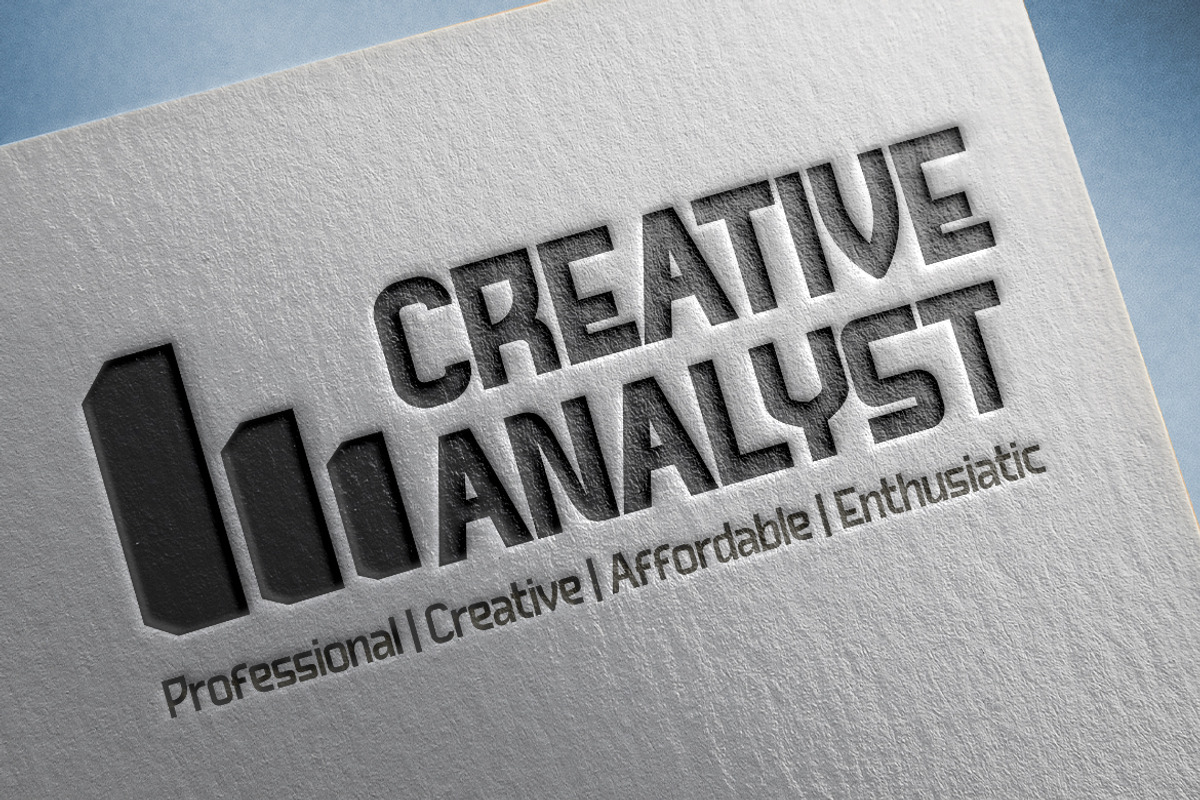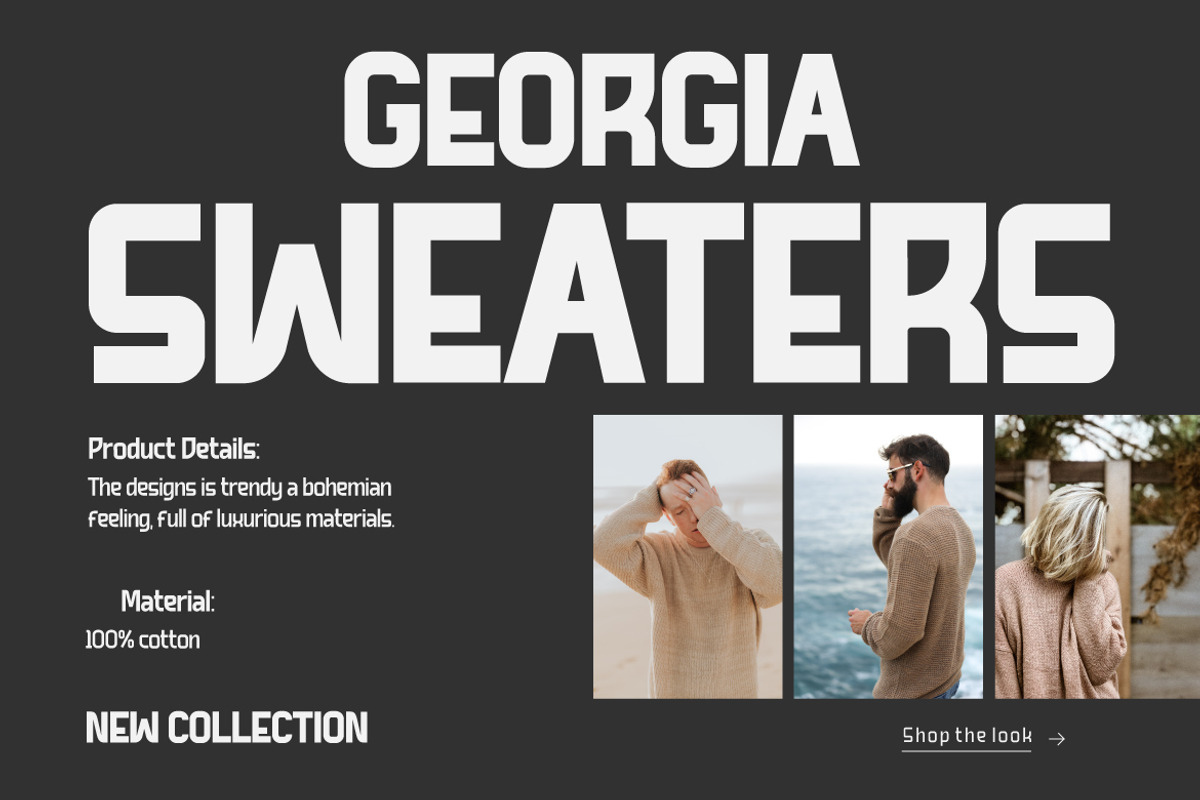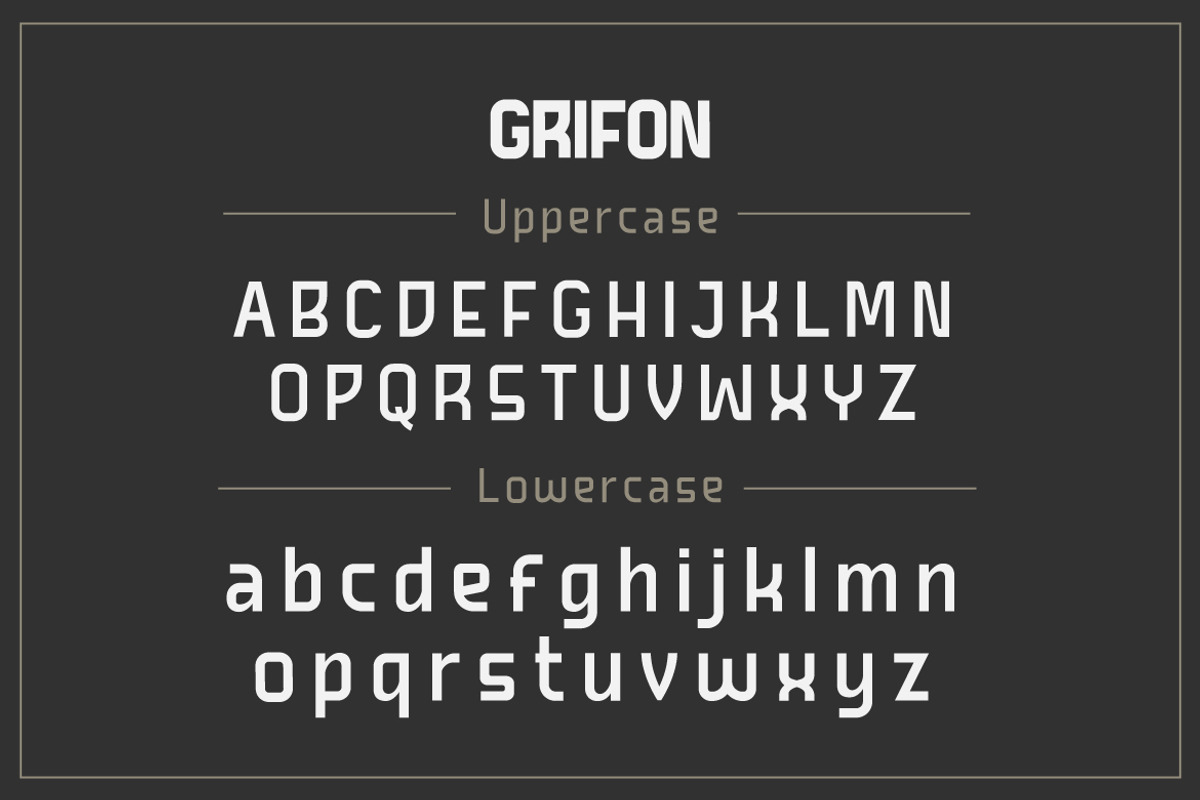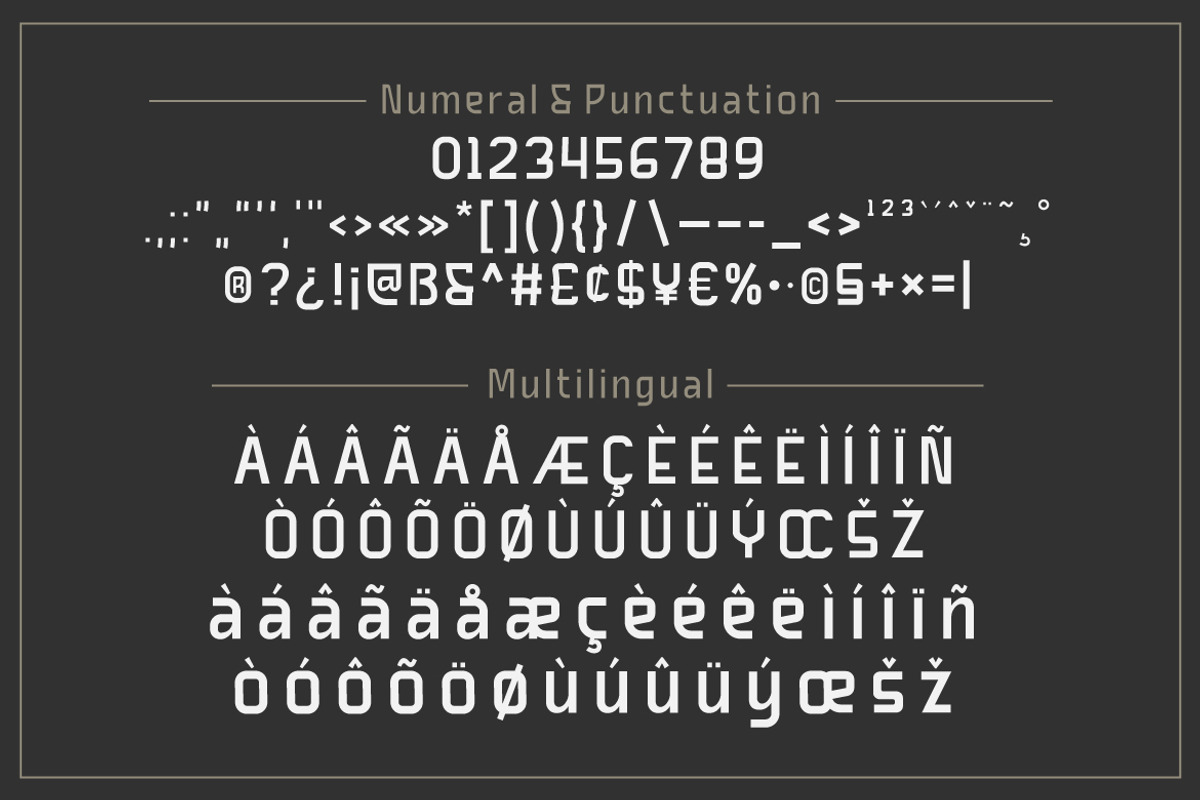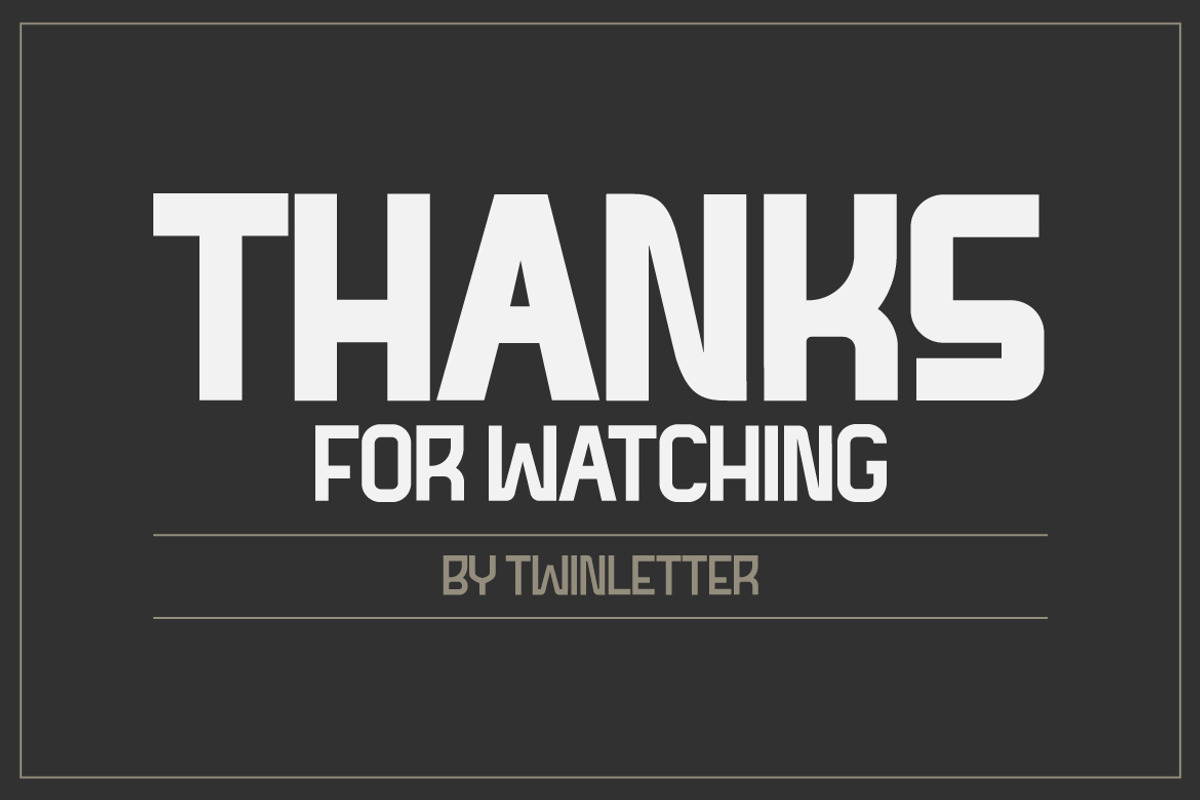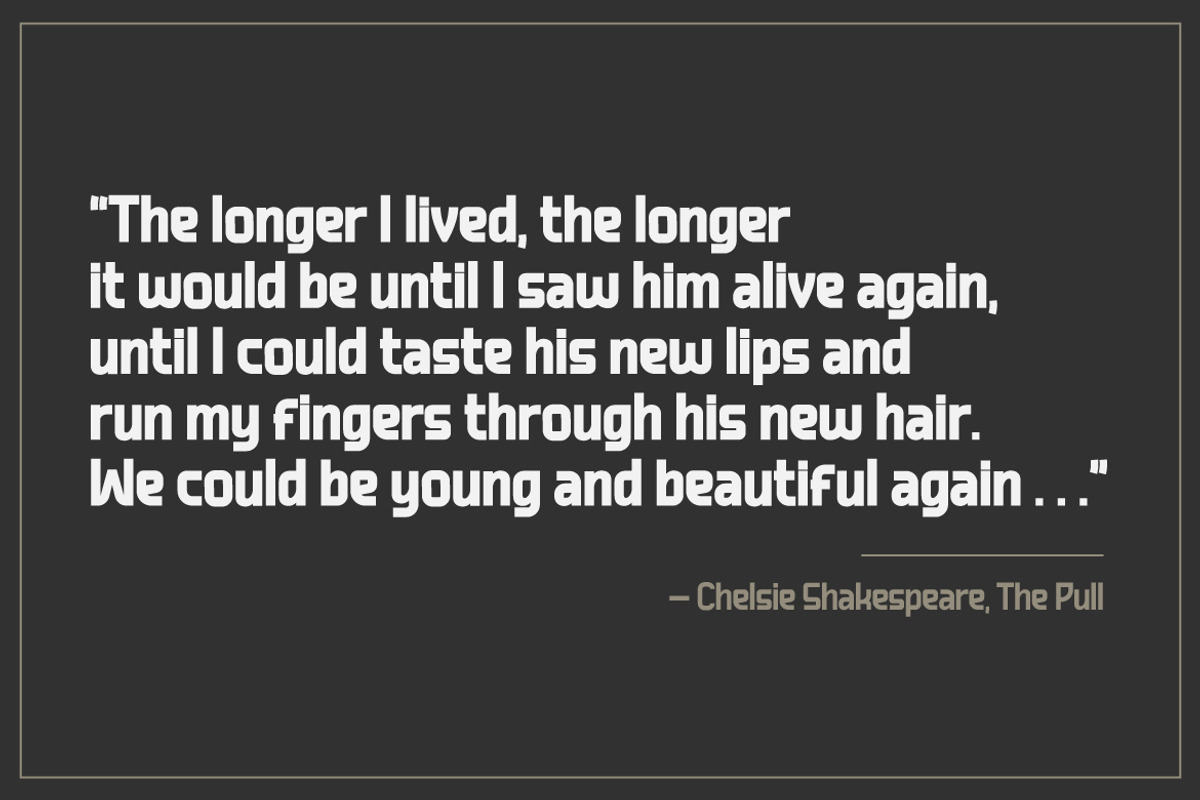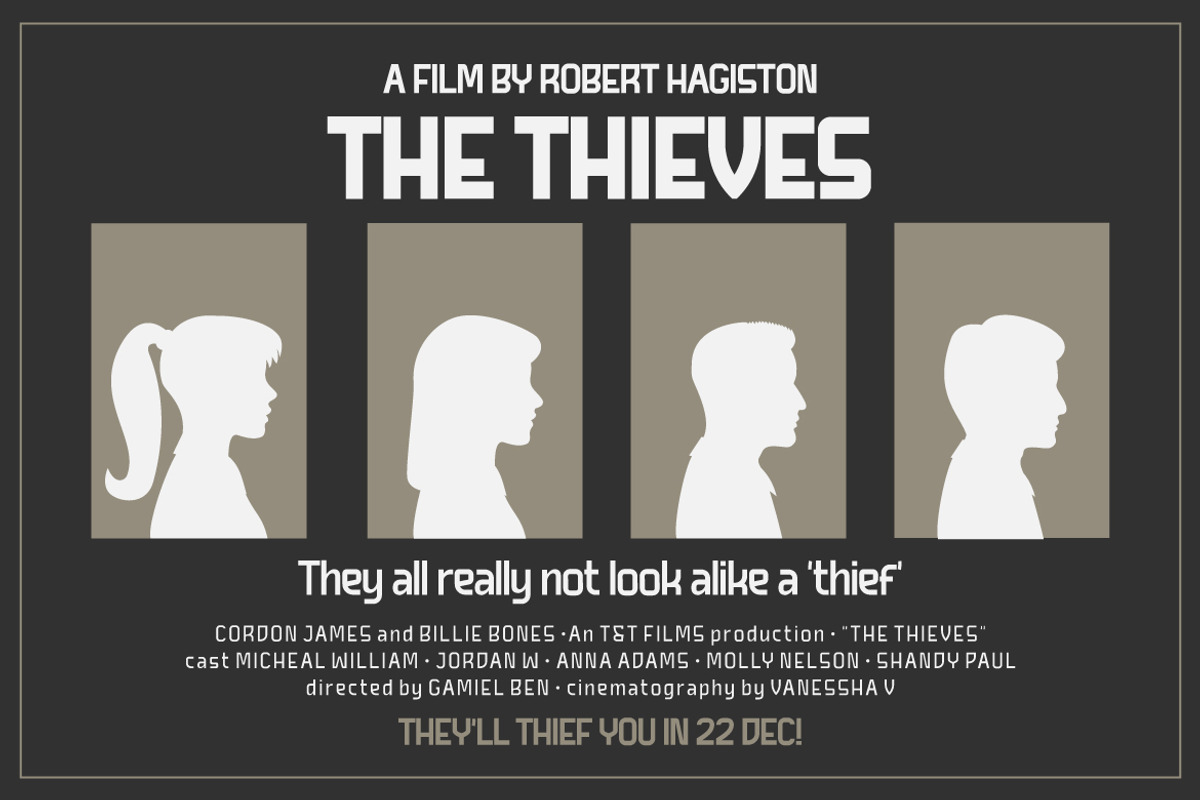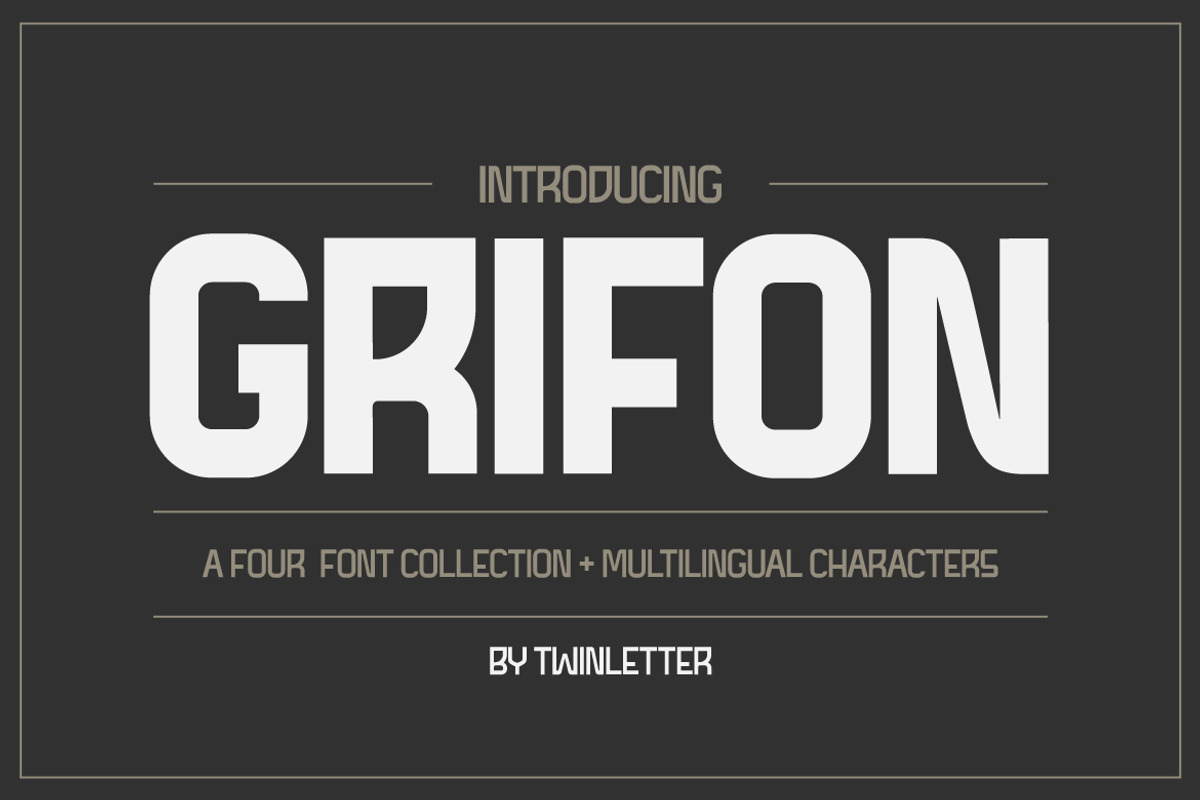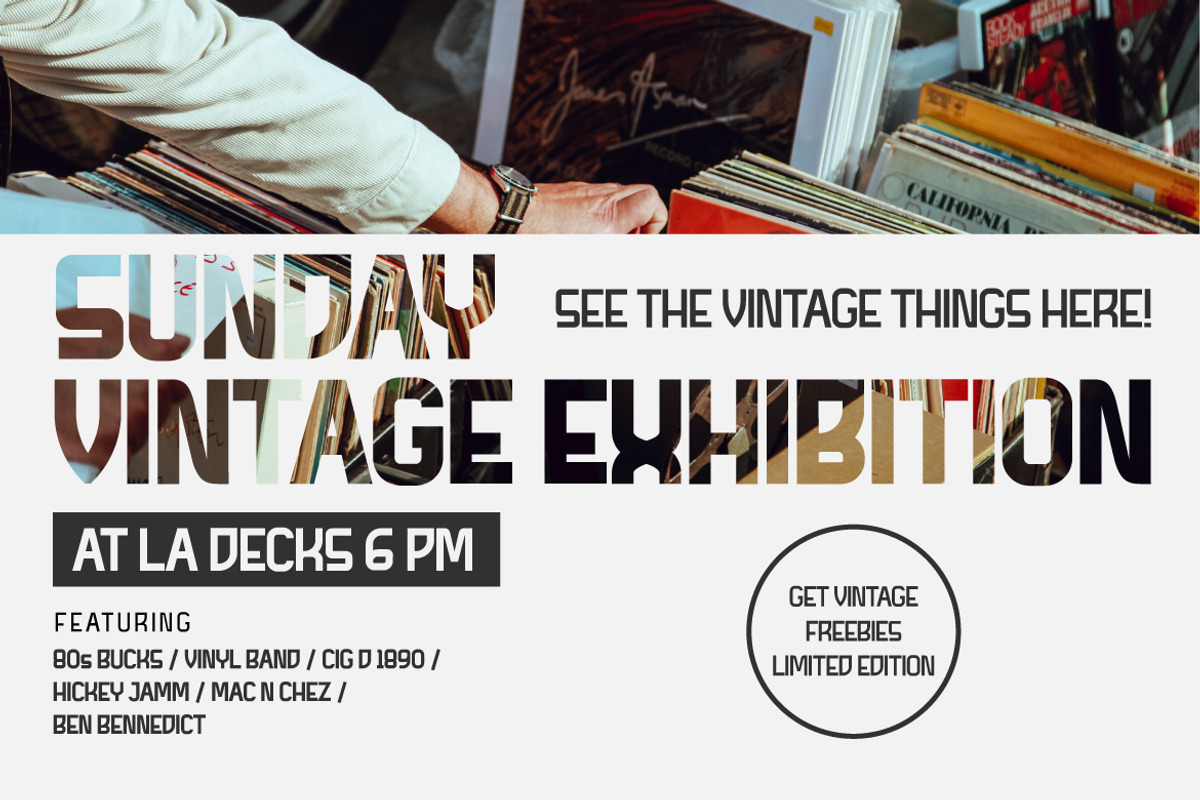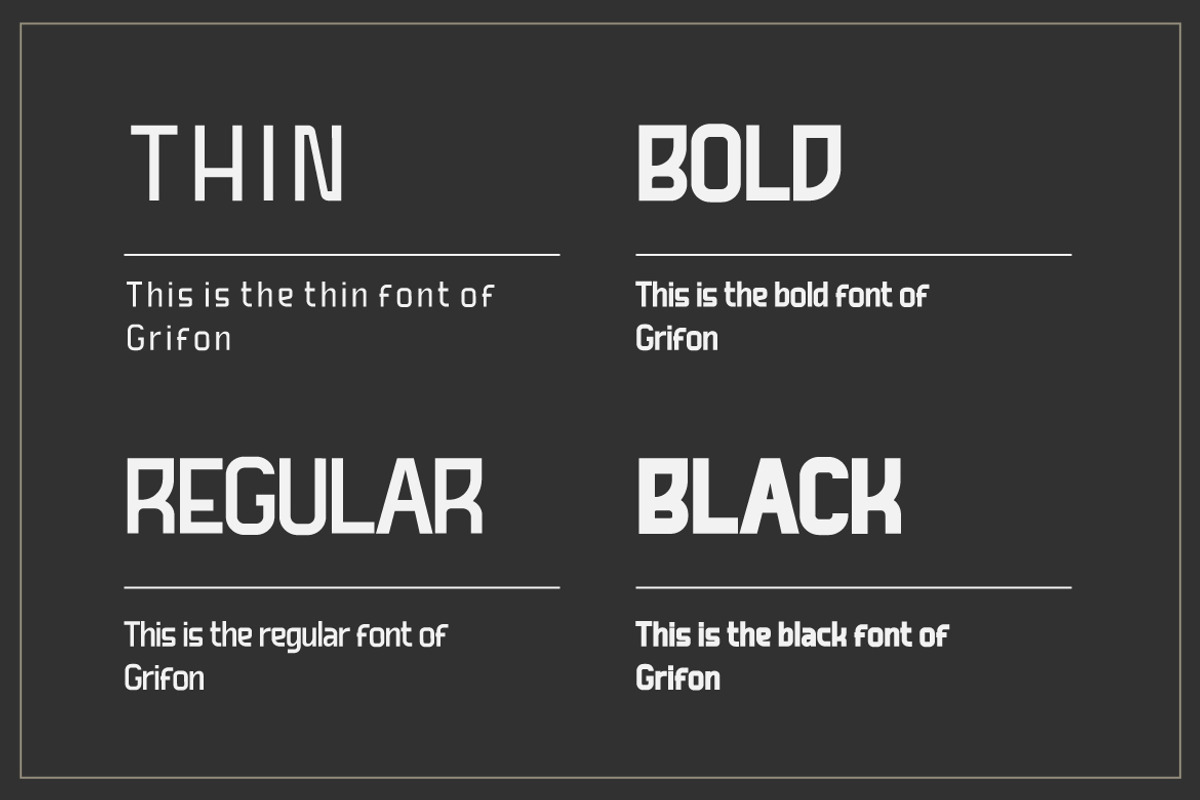
Grifon
GRIFON is a san serif font with anatomical letter shapes that has been meticulously crafted to provide a unique and interesting combination of text while remaining easy to look at and read. Imagine that any audience who views your project is immediately surprised and remembers it powerfully if you use this font; every message you express with this font will be easy to understand and remember.
of course, your various design projects will be perfect and extraordinary if you use this font because this font is equipped with a font family, both for titles and subtitles and sentence text, start using our fonts for your extraordinary projects.